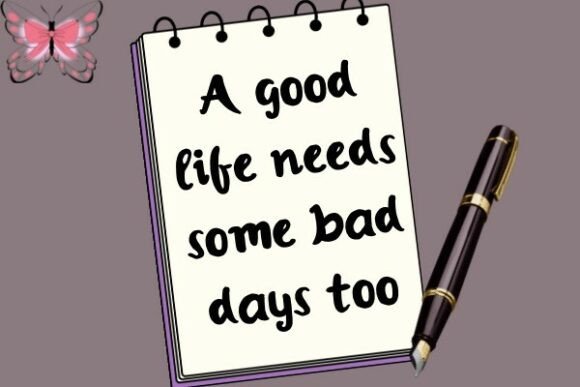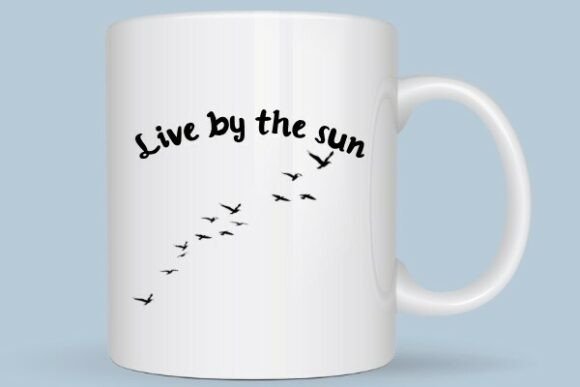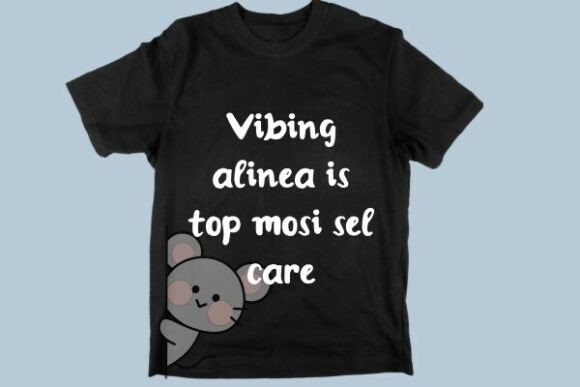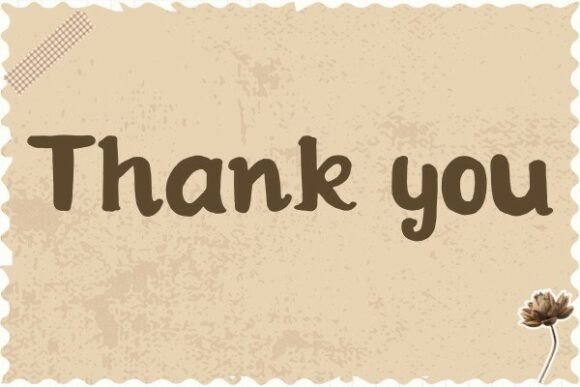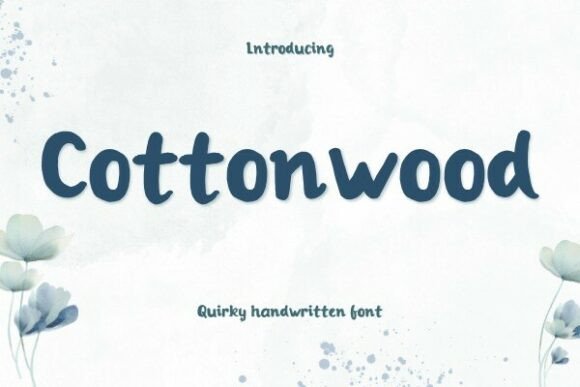
Cottonwood Font: Elevate Your Designs with Simplicity and Elegance
Are you tired of using the same old fonts in your designs? Look no further than Cottonwood, a unique hand-lettered font that embodies simplicity and elegance. This beautiful font is perfectly suited to elevate design projects such as T-shirt designs, greeting cards, or invitations. Its expressive nature also lends itself brilliantly to mockup designs, making it a versatile addition to any designer’s toolkit.
The Characteristics of Cottonwood Font
Cottonwood is a hand-lettered font that boasts a distinctive, elegant feel. Its simplicity is one of its standout features, making it easy to read and understand. The font’s clean lines and curves give it a sophisticated look that’s perfect for a wide range of design projects. Whether you’re creating a T-shirt design, a greeting card, or an invitation, Cottonwood is sure to add a touch of class and sophistication.
Why Choose Cottonwood Font?
So why choose Cottonwood font for your designs? Here are just a few reasons why this font stands out from the crowd:
- Unique and eye-catching: Cottonwood is a one-of-a-kind font that’s sure to grab attention. Its distinctive look and feel make it perfect for designers who want to create something truly special.
- Versatile: Whether you’re creating a T-shirt design, a greeting card, or an invitation, Cottonwood is the perfect choice. Its expressive nature also makes it ideal for mockup designs.
- Elegant and sophisticated: Cottonwood’s clean lines and curves give it a sophisticated look that’s perfect for a wide range of design projects.
- Easy to read: Despite its elegant feel, Cottonwood is easy to read and understand, making it perfect for designs where clarity is key.
Using Cottonwood Font in Your Designs
So how can you use Cottonwood font in your designs? Here are a few ideas to get you started:
- T-shirt designs: Cottonwood is perfect for T-shirt designs, adding a touch of elegance and sophistication to any design.
- Greeting cards: Whether you’re creating a birthday card, a wedding invitation, or a holiday greeting, Cottonwood is the perfect choice.
- Invitations: Cottonwood’s elegant feel makes it perfect for formal invitations, such as wedding invitations or baby shower invitations.
- Mockup designs: Cottonwood’s expressive nature makes it ideal for mockup designs, allowing you to create stunning visuals that showcase your products or services.
Tips for Getting the Most Out of Cottonwood Font
To get the most out of Cottonwood font, here are a few tips to keep in mind:
- Experiment with different colors: Cottonwood looks great in a wide range of colors, so don’t be afraid to experiment and find the perfect hue for your design.
- Play with different sizes: Cottonwood is versatile enough to be used in a wide range of sizes, from small text to large headlines.
- Combine with other fonts: Cottonwood pairs well with a wide range of fonts, so don’t be afraid to combine it with other fonts to create a unique look.
In conclusion, Cottonwood font is a unique and elegant hand-lettered font that’s perfect for designers who want to add a touch of sophistication to their designs. Its versatility, expressiveness, and ease of use make it an ideal choice for a wide range of design projects, from T-shirt designs to mockup designs. So why not give Cottonwood a try and see the difference it can make in your designs?
Embracing the Artistry of Cottonwood Font
Cottonwood font is more than just a font – it’s a way to add artistry and elegance to your designs. With its unique and eye-catching look, Cottonwood is sure to captivate your audience and leave a lasting impression. So why settle for ordinary fonts when you can have a font that truly stands out? Embrace the artistry of Cottonwood font and take your designs to the next level.